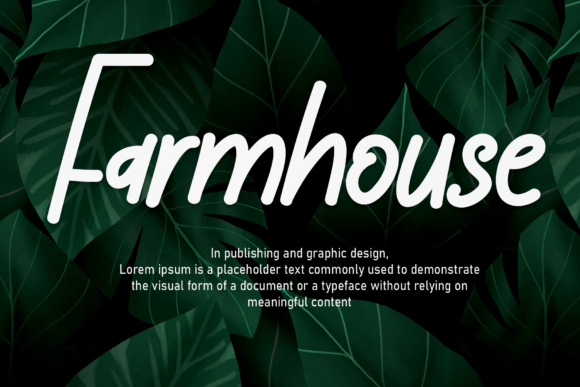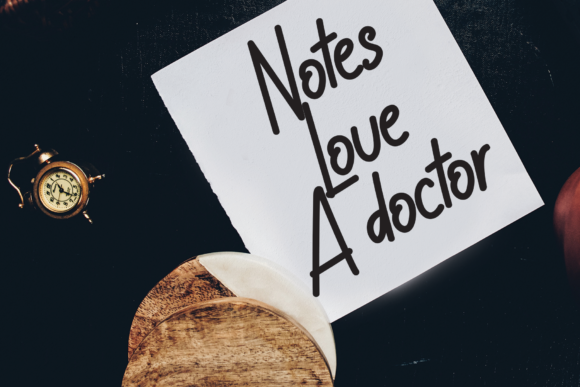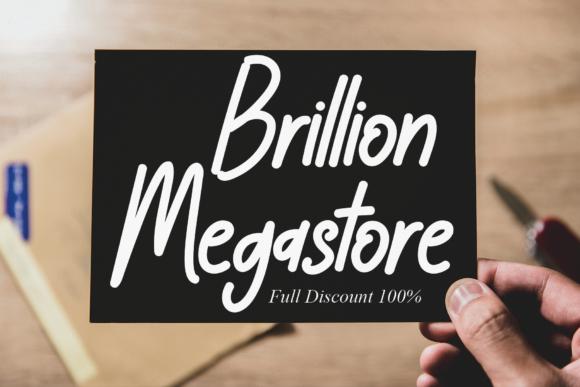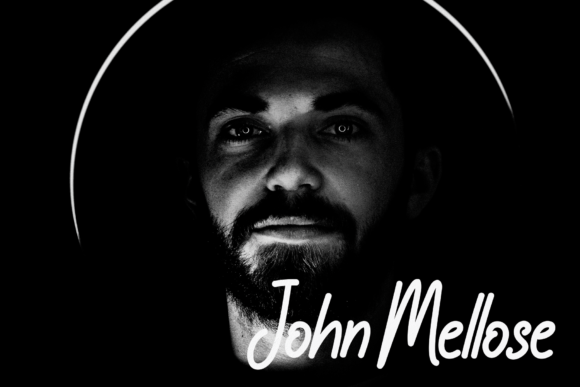
Babylonia Font: Elevate Your Designs with Elegance and Sophistication
In the world of typography, fonts play a crucial role in conveying the tone and personality of a design. For designers and crafters looking to add a touch of elegance and sophistication to their projects, the Babylonia Font is an excellent choice. This stunning, paint-brushed, free-flowing, and adaptable handwritten font is perfect for a wide range of applications, from wedding invitations to social media posts.
What is Babylonia Font?
Babylonia Font is a beautiful, handwritten typeface that exudes elegance and refinement. Its unique, paint-brushed strokes give it a distinctive, artistic feel that sets it apart from more traditional fonts. The font’s free-flowing design makes it perfect for use in a variety of contexts, from formal events to social media posts.
Key Features of Babylonia Font
- Paint-brushed strokes: The Babylonia Font features beautiful, paint-brushed strokes that give it a unique, artistic feel.
- Free-flowing design: The font’s free-flowing design makes it perfect for use in a variety of contexts, from formal events to social media posts.
- Adaptable: The Babylonia Font is highly adaptable, making it suitable for use in a wide range of applications.
- Elegant and sophisticated: The font’s elegant and sophisticated design makes it perfect for projects that require a touch of refinement.
Uses for Babylonia Font
The Babylonia Font is incredibly versatile, making it suitable for use in a wide range of applications. Here are some ideas to get you started:
- Wedding invitations: The Babylonia Font is perfect for wedding invitations, adding a touch of elegance and sophistication to your special day.
- Business cards: Use the Babylonia Font to create professional, stylish business cards that make a lasting impression.
- Greeting cards: The font’s elegant design makes it perfect for use in greeting cards, adding a touch of refinement to your messages.
- Social media posts: Use the Babylonia Font to elevate your social media posts, adding a touch of elegance and sophistication to your online presence.
- Wall art: The Babylonia Font is also perfect for use in wall art, adding a touch of refinement to your home or office decor.
Tips for Using Babylonia Font
To get the most out of the Babylonia Font, here are a few tips to keep in mind:
- Use it sparingly: While the Babylonia Font is elegant and sophisticated, it can be overwhelming if used excessively. Use it sparingly to add a touch of refinement to your designs.
- Pair it with complementary fonts: The Babylonia Font pairs well with a variety of fonts, including serif and sans-serif typefaces. Experiment with different pairings to find the perfect combination for your design.
- Experiment with colors: The Babylonia Font looks stunning in a variety of colors, from bold and bright to soft and pastel. Experiment with different colors to find the perfect shade for your design.
The Babylonia Font is a stunning, elegant, and sophisticated handwritten font that is perfect for designers and crafters looking to add a touch of refinement to their projects. With its unique, paint-brushed strokes and free-flowing design, this font is highly adaptable and suitable for use in a wide range of applications. Whether you’re creating wedding invitations, business cards, or social media posts, the Babylonia Font is an excellent choice.